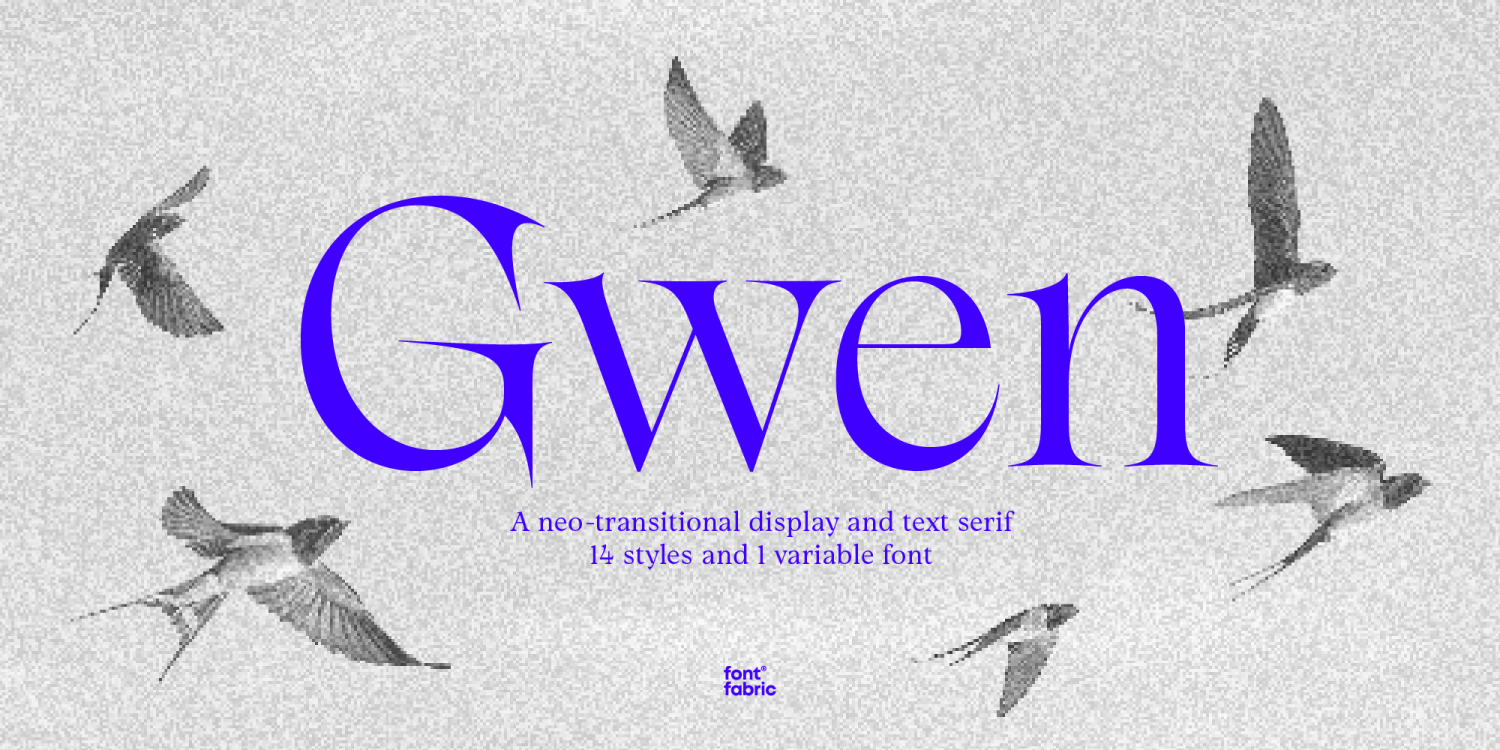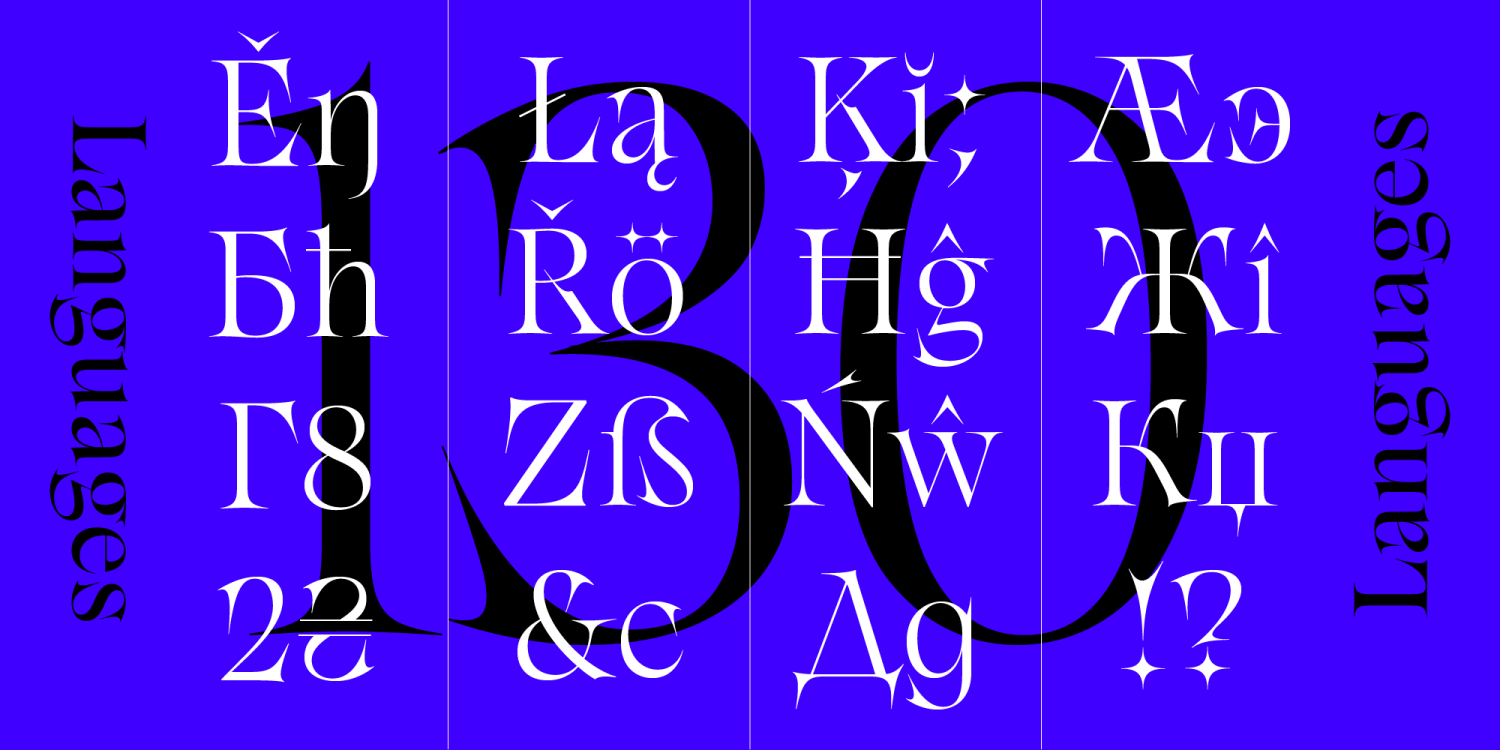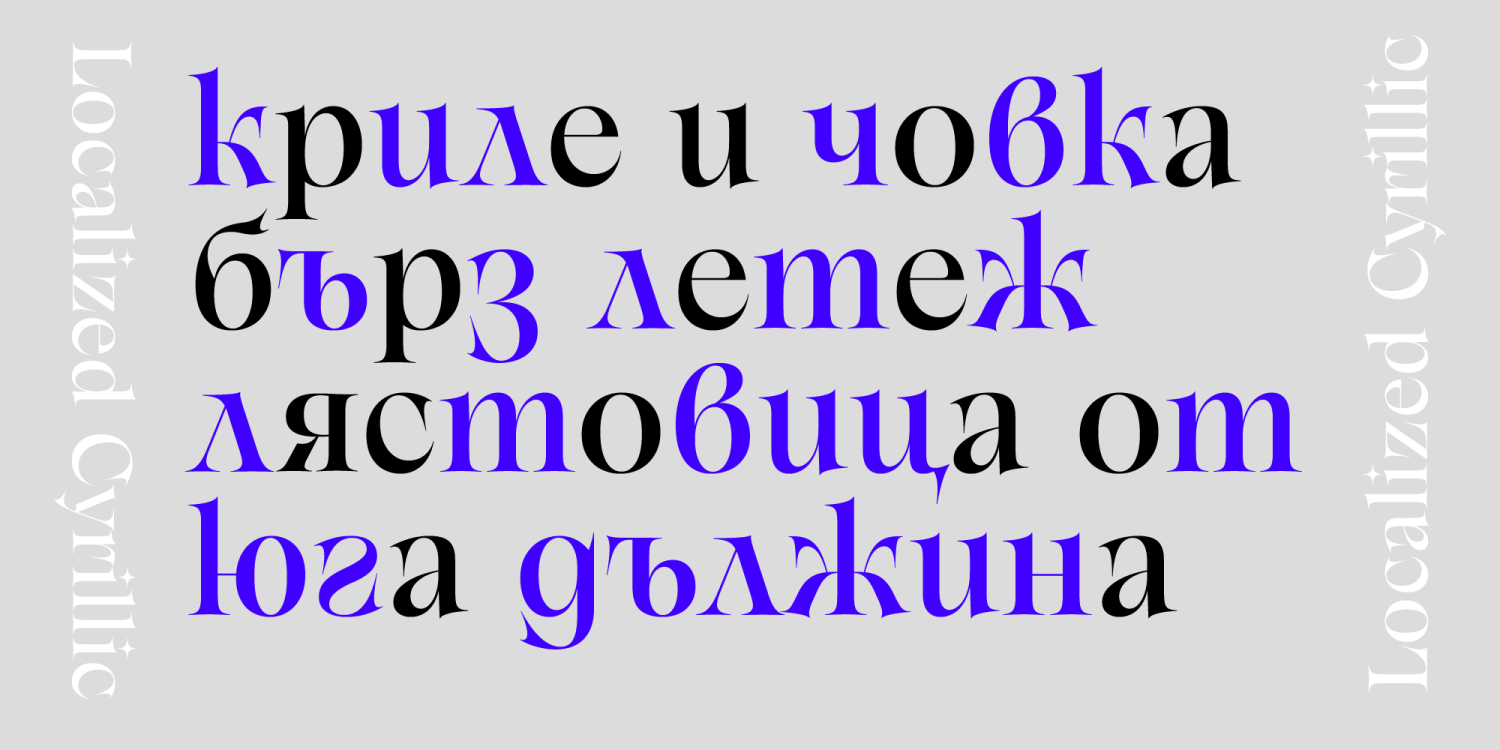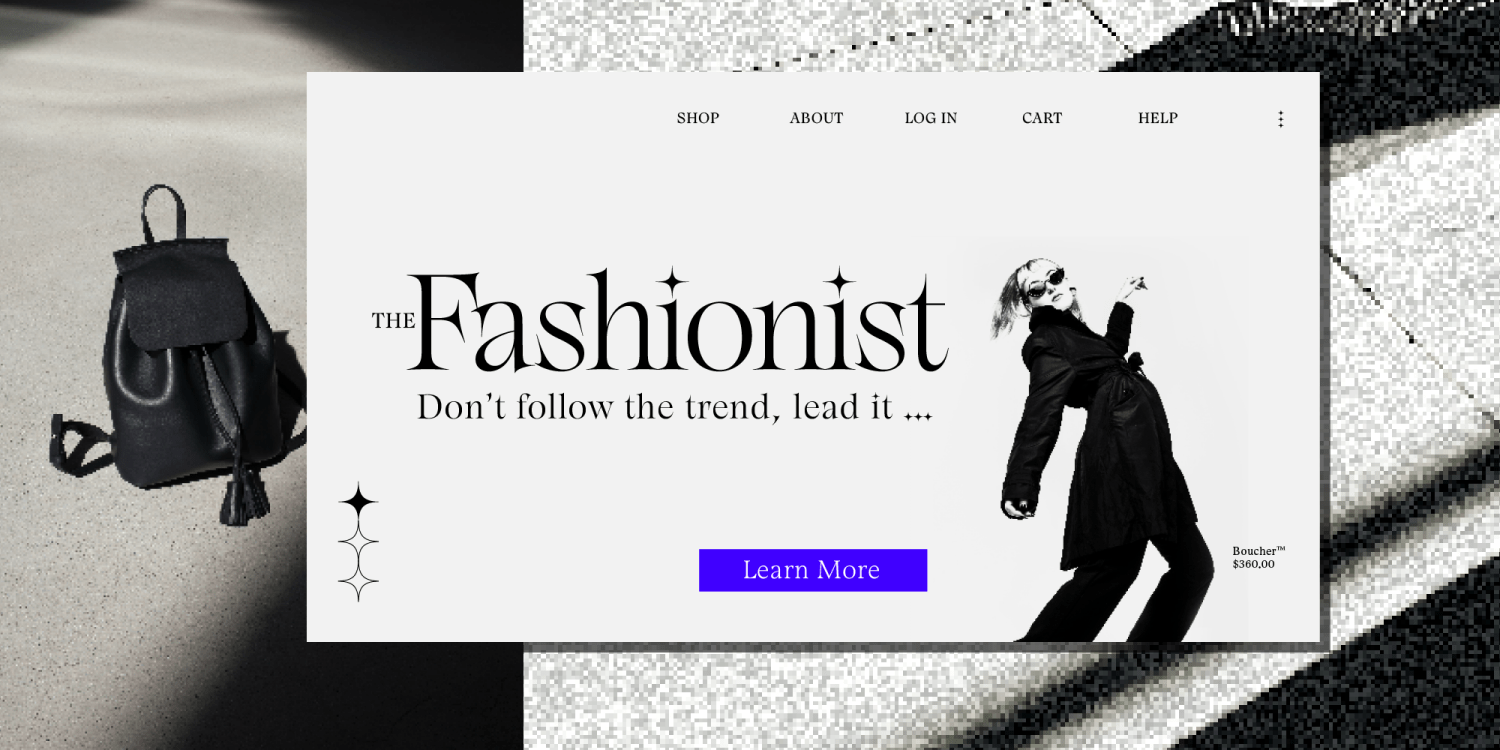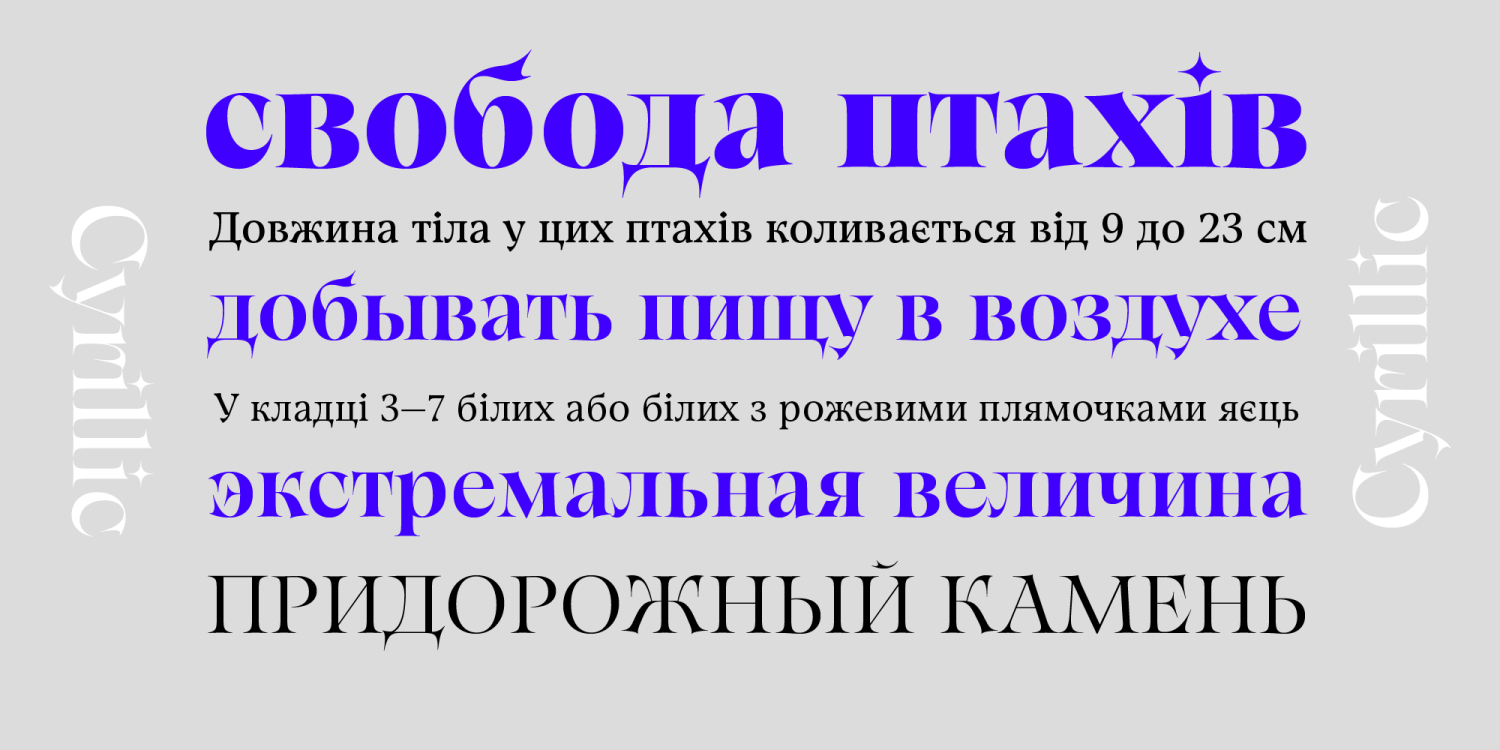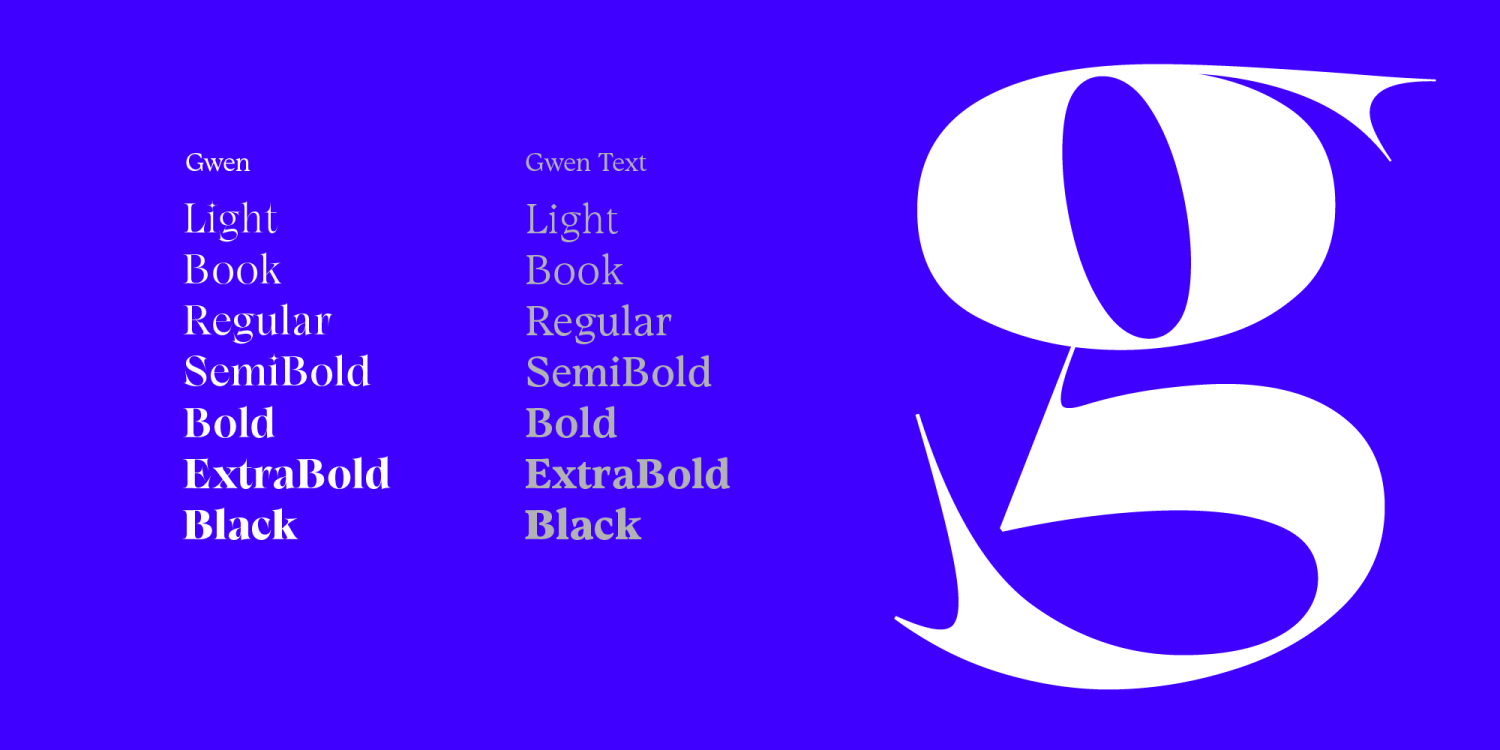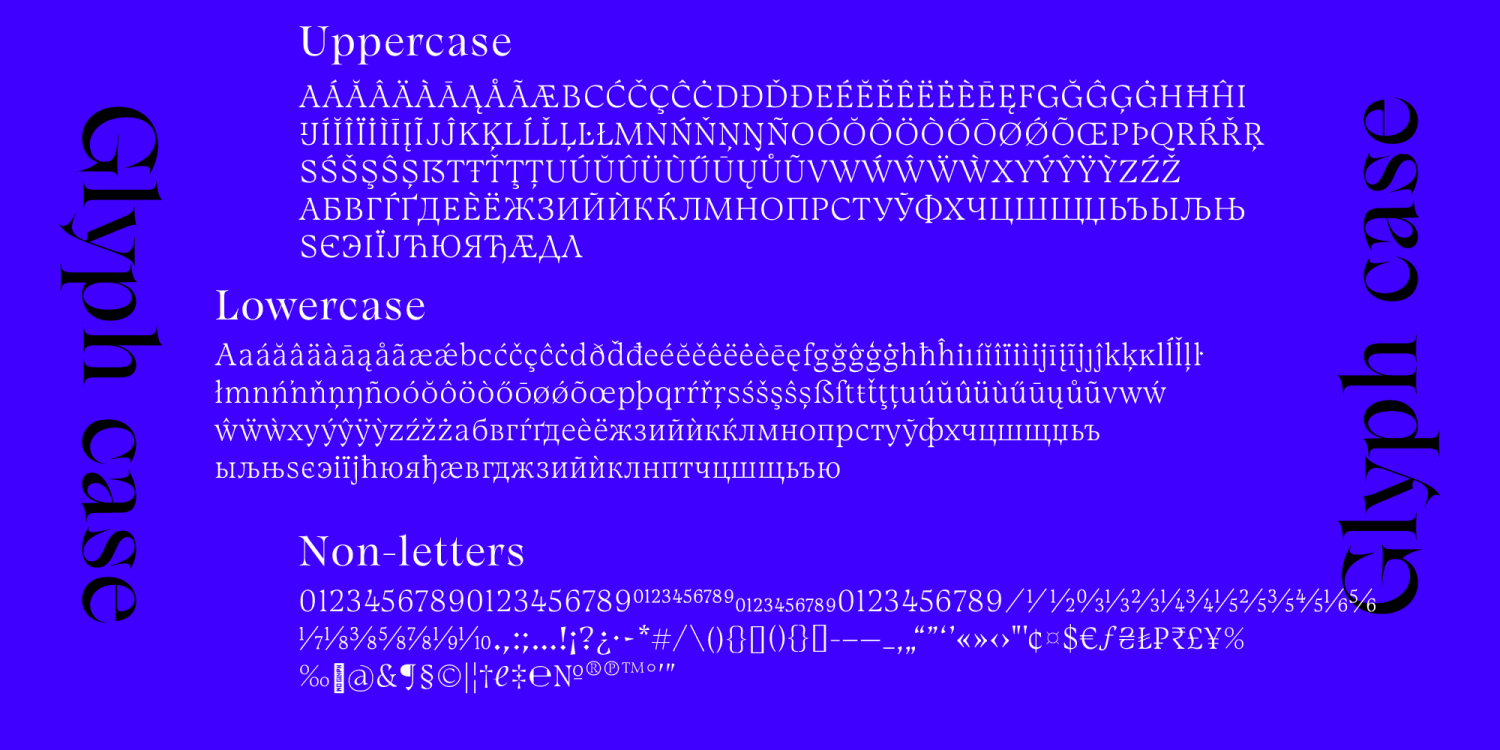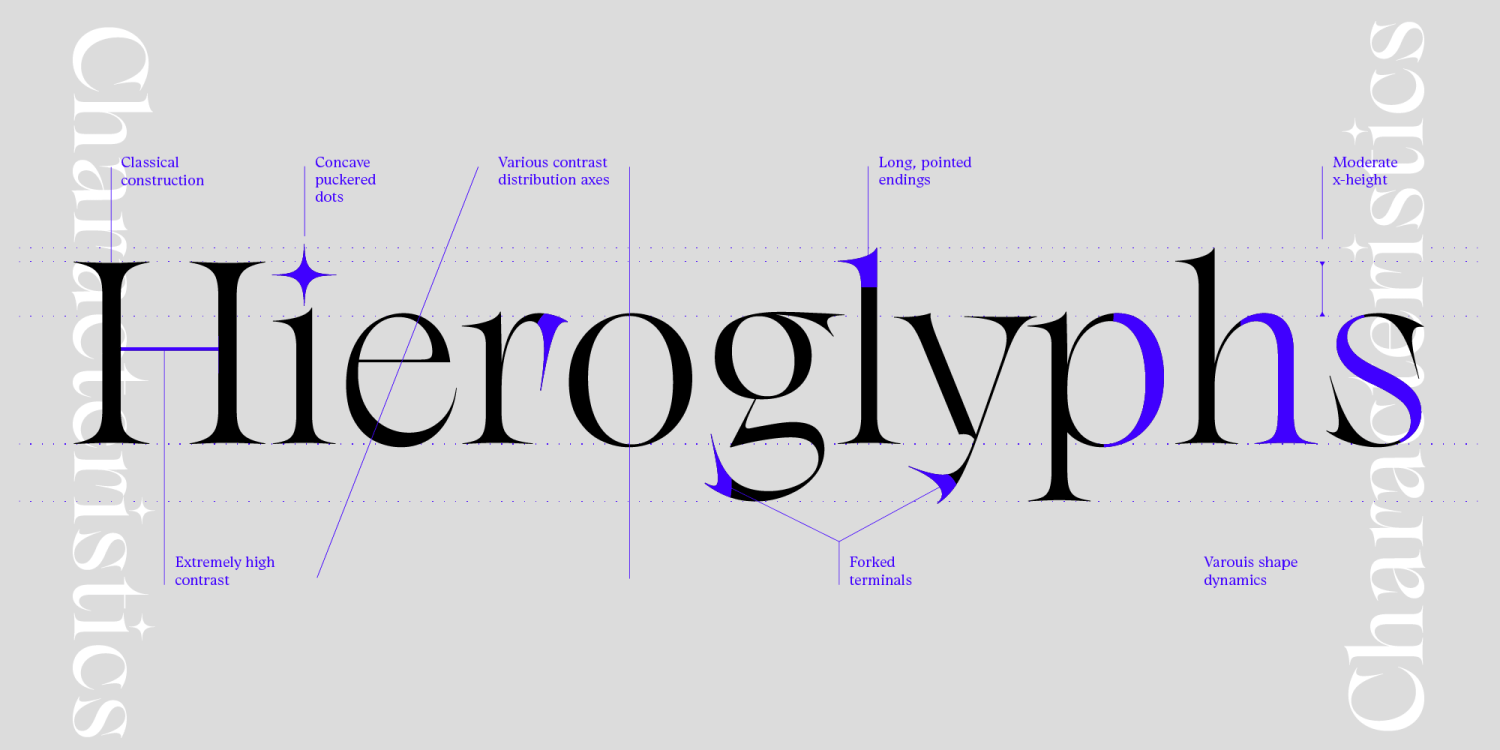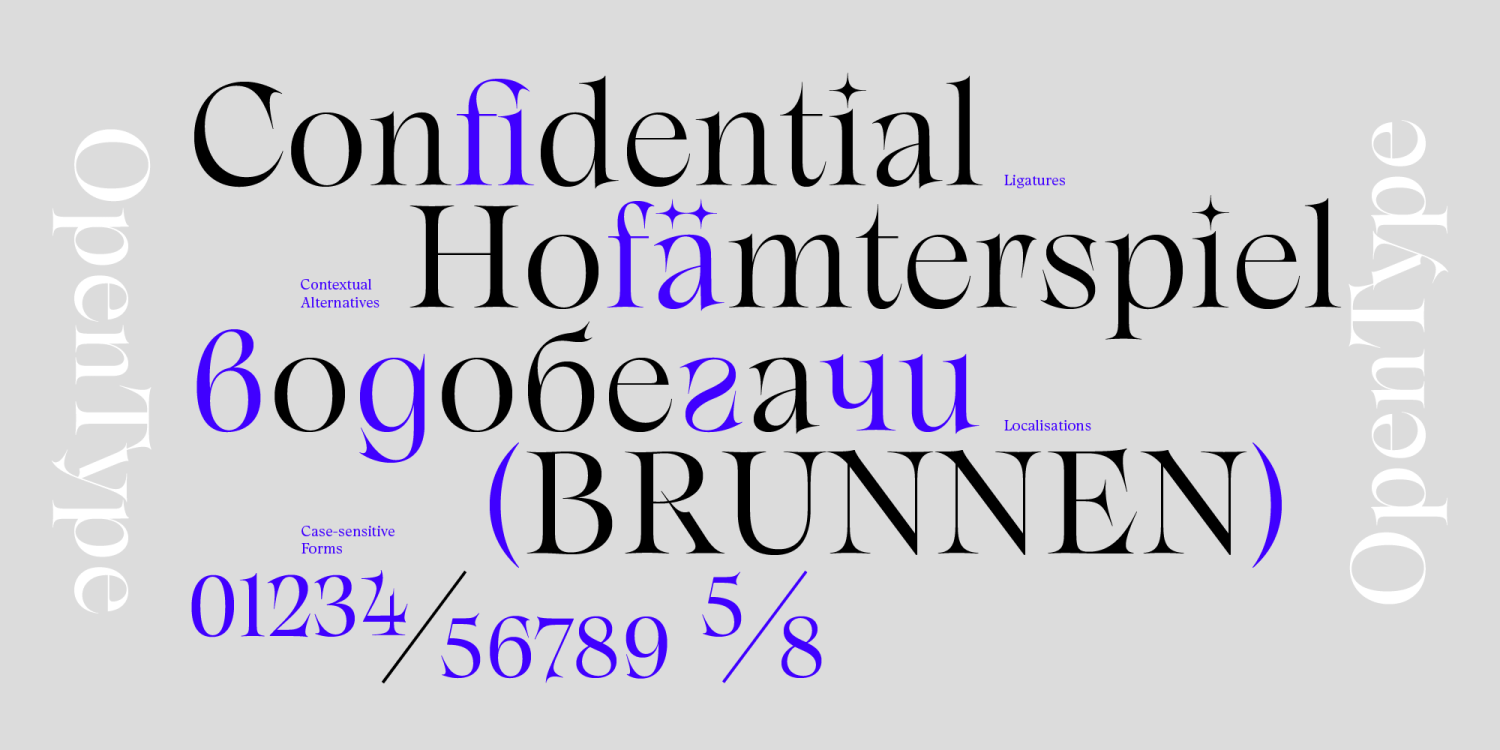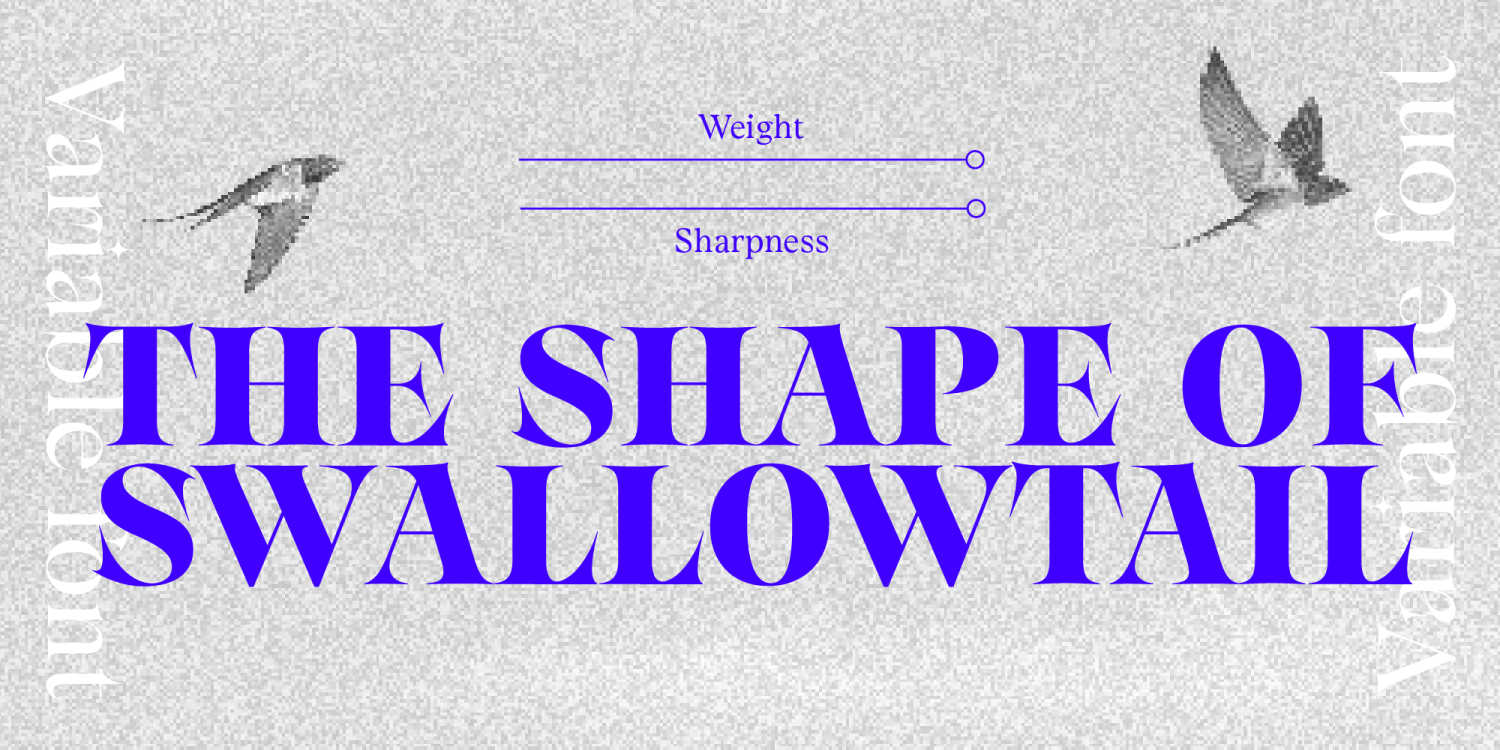
Gwen
Font Family by Fontfabric
Gwen is a high-contrast display serif designed by Pavel Pavlov and Plamen Motev, released by Fontfabric. Crafted as a variable font system with two subfamilies—Display (for headlines) and Text (for smaller sizes)—Gwen masterfully blends strong editorial character with practical versatility. Whether you need bold, expressive headlines or elegant, readable text, Gwen gives you the flexibility to make your designs truly stand out.
Why Choose Gwen?
Gwen is a Serif typeface designed for editorial layouts, headlines, posters, packaging, and landing pages. Its dual-application design—highly expressive in large settings and elegant, legible in text sizes—makes it an excellent choice for designers, art directors, and brands seeking bold serif personality with editorial functionality.
With a total of 14 styles plus a flexible variable font, advanced OpenType features, and full multilingual support, Gwen ensures versatility and high-quality typography for every project. Enjoy a strong typographic voice with editorial-grade contrast and smooth adaptability between Display and Text subfamilies.